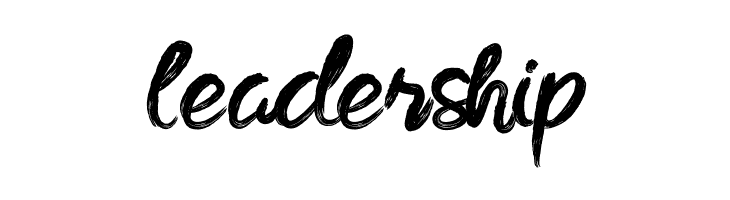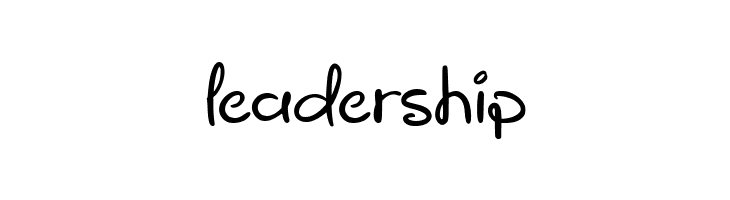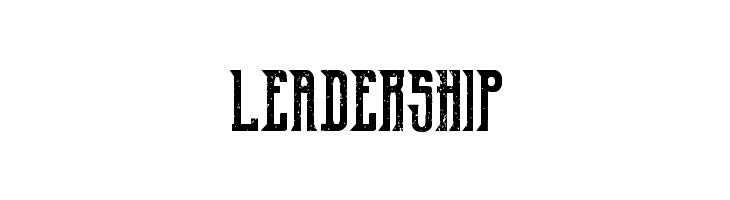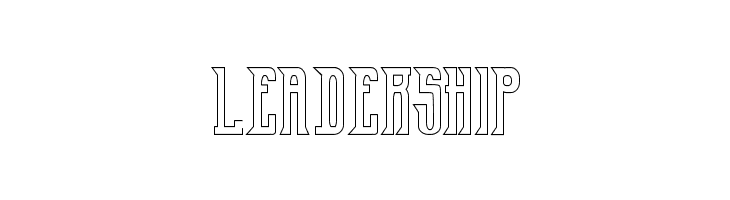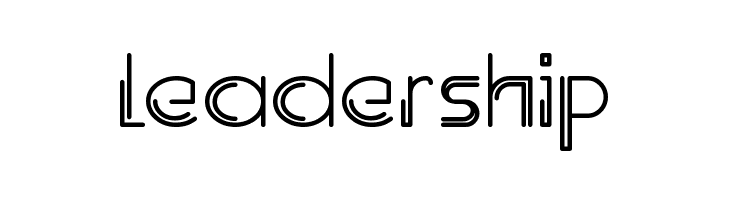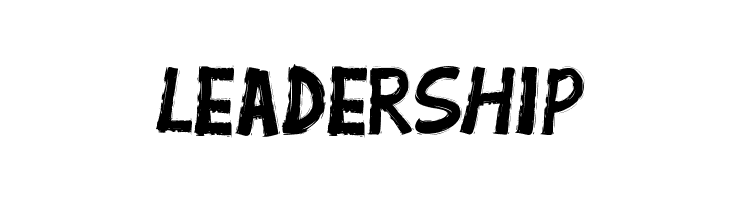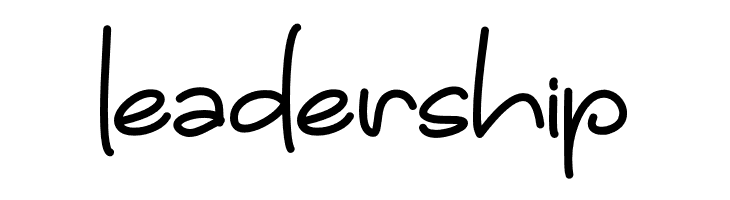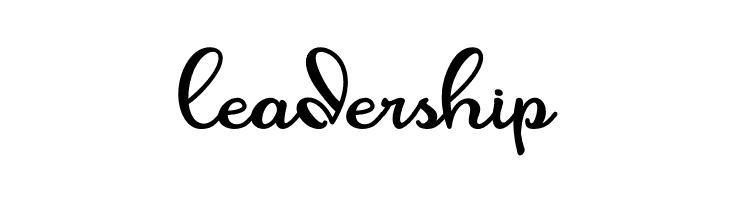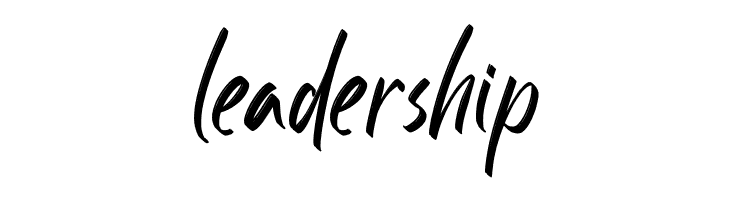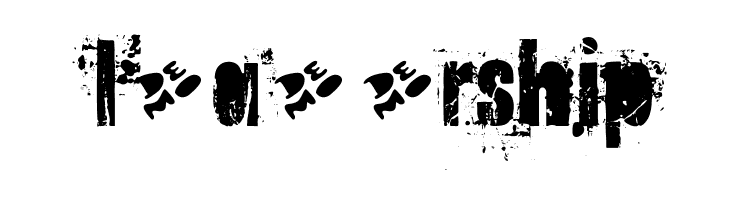
A bold, dynamic handwritten font with thick, uneven strokes and a casual, energetic feel.
A bold, hand-drawn font with dynamic, brush-like strokes.
A bold, textured font with a hand-drawn, brush-like appearance.
A bold, playful font with rounded, bubbly characters and a friendly aesthetic.
A bold, decorative font with a blend of modern and vintage elements.
A playful, handwritten font with tall, narrow letters and rounded edges.
A bold, high-contrast serif font with a vintage yet modern style.
A bold, modern sans-serif font with geometric precision and rounded edges.
A modern, geometric font with uniform stroke widths and a clean, minimalistic design.
A bold, distressed font with a grunge texture, ideal for edgy designs.
A flowing, elegant script font with smooth, cursive strokes.
A playful, hand-drawn style font with bold, rounded letterforms.
A bold, vintage serif font with tall, narrow letters and elegant serifs.
A stylish outline font with a blend of serif and sans-serif elements, offering elegance and readability.
A playful, hand-drawn script font with tall, narrow characters and a whimsical style.
A bold, gothic-inspired font with sharp serifs and high contrast strokes.
A bold, flowing script font with a dynamic, handwritten style.
A flowing, elegant script font with a handwritten style.
A cursive, handwritten font with elegant, flowing strokes.
A bold, geometric font with slab serifs and a modern classic style.
A bold, shadowed font with a modern and striking design.
A bold, stencil-style font with geometric shapes and clean lines.
A bold, outlined font with a geometric and modern style.
A decorative and modern font with whimsical uppercase and straightforward lowercase letters.
A decorative and modern font with ornate uppercase and clean lowercase characters.
A bold, decorative font with unique uppercase flair and consistent lowercase design.
A modern, elegant script font with a fluid, handwritten style.
A playful, casual handwritten font with tall, narrow letters and rounded edges.
A bold, graffiti-inspired font with sharp, angular lines and dynamic curves.
A whimsical, elegant cursive font with flowing, decorative characters.
A playful, handwritten font with rounded, consistent strokes and a casual aesthetic.
A dynamic handwritten font with fluid, cursive letterforms.